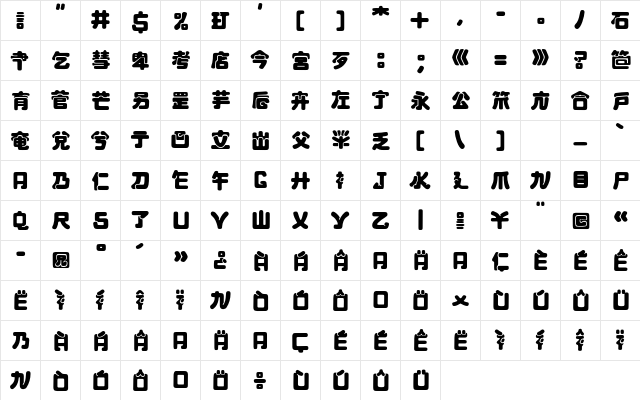
Maximage Jululu Regular
| Foundry | Maximage |
| Designer | Maximage |
Design Context for Maximage Jululu Typeface
Maximage Jululu is a composed and adaptable typeface that performs quietly and consistently across a wide range of design contexts.